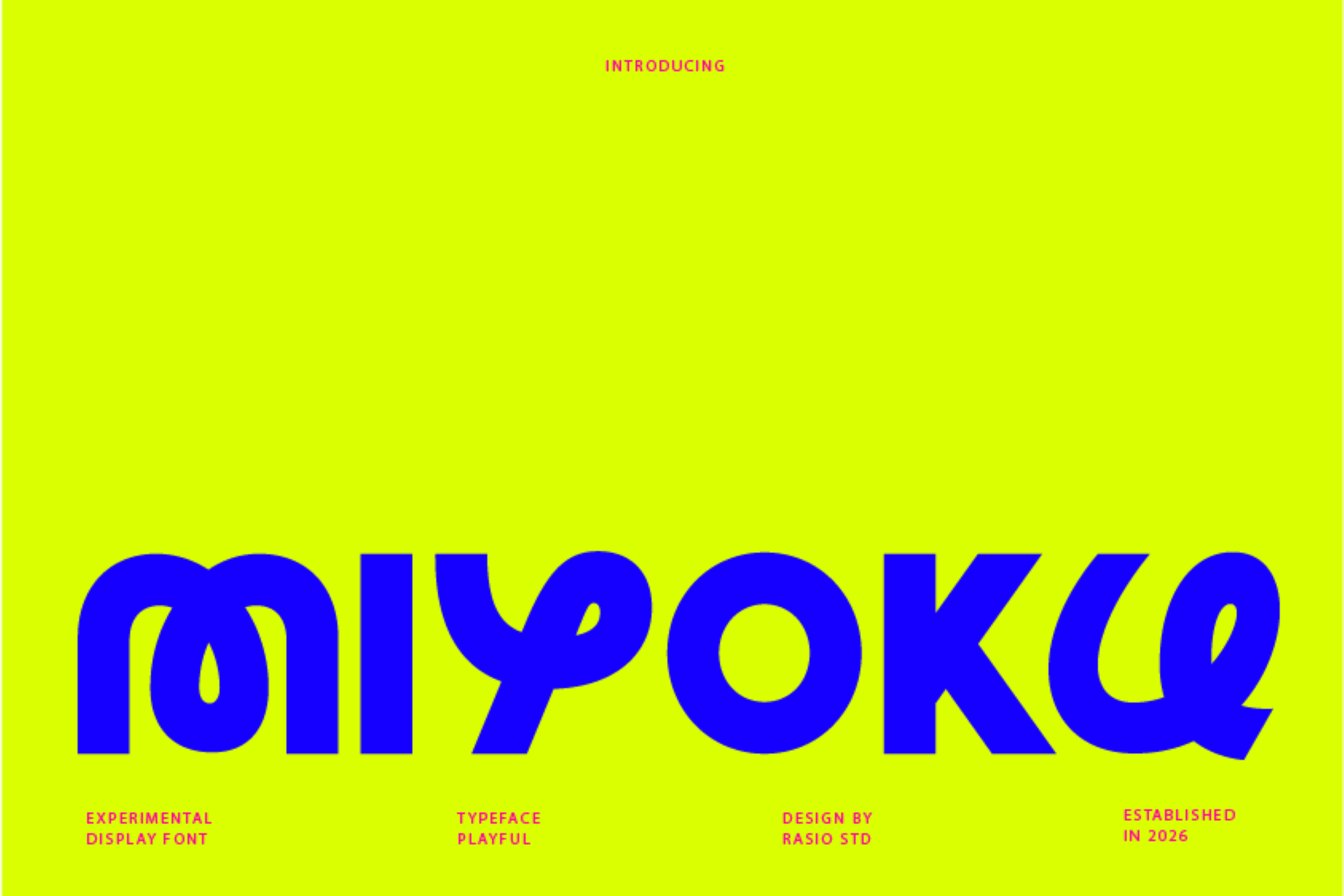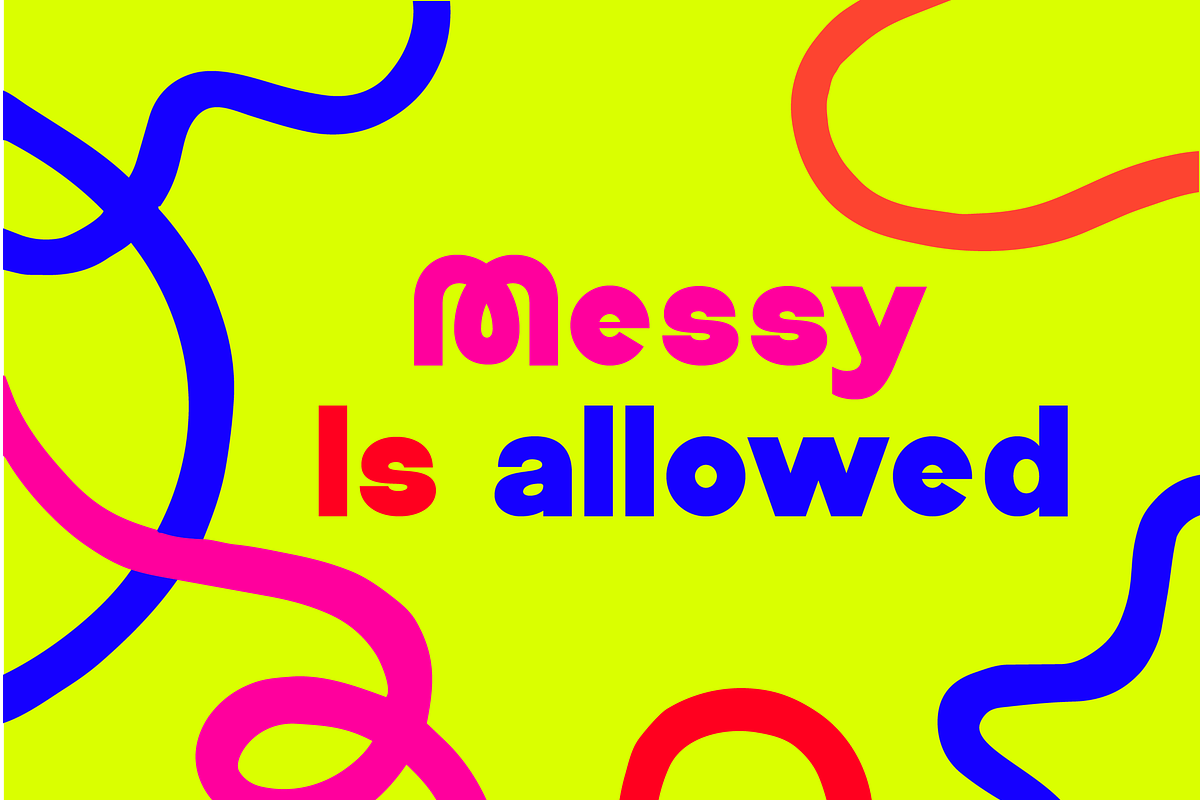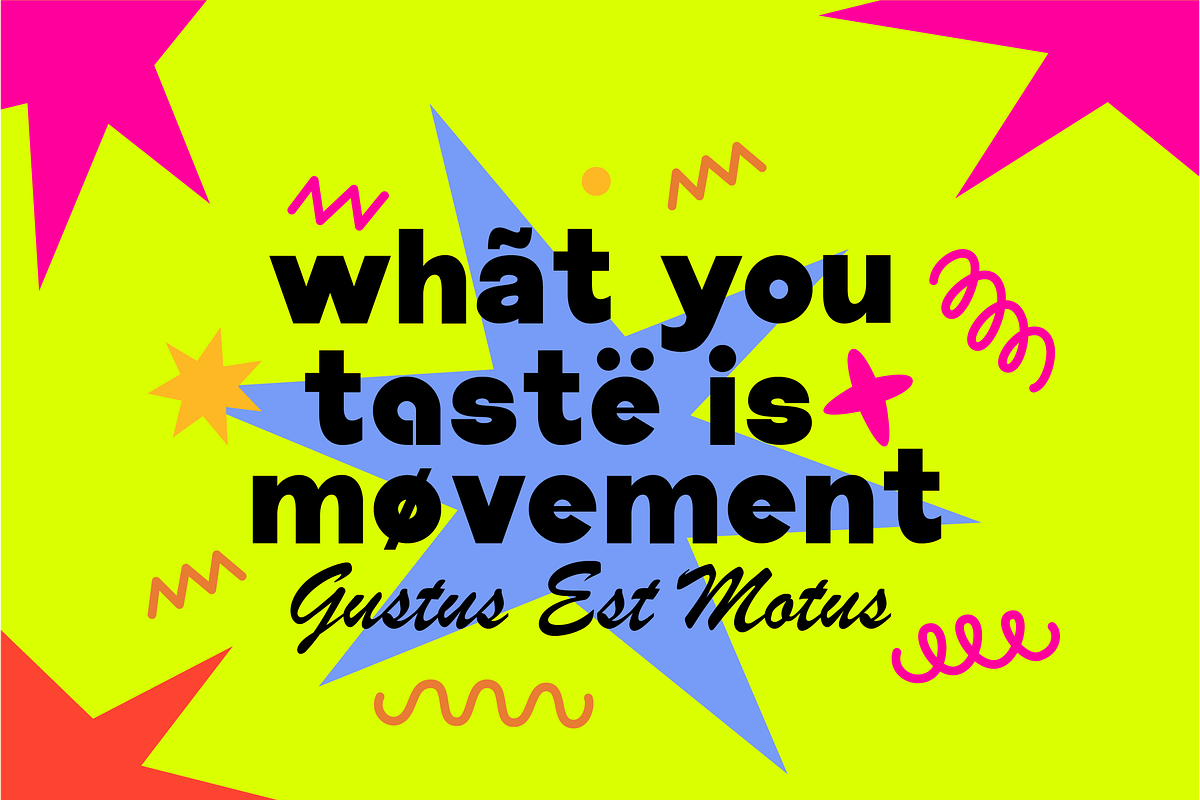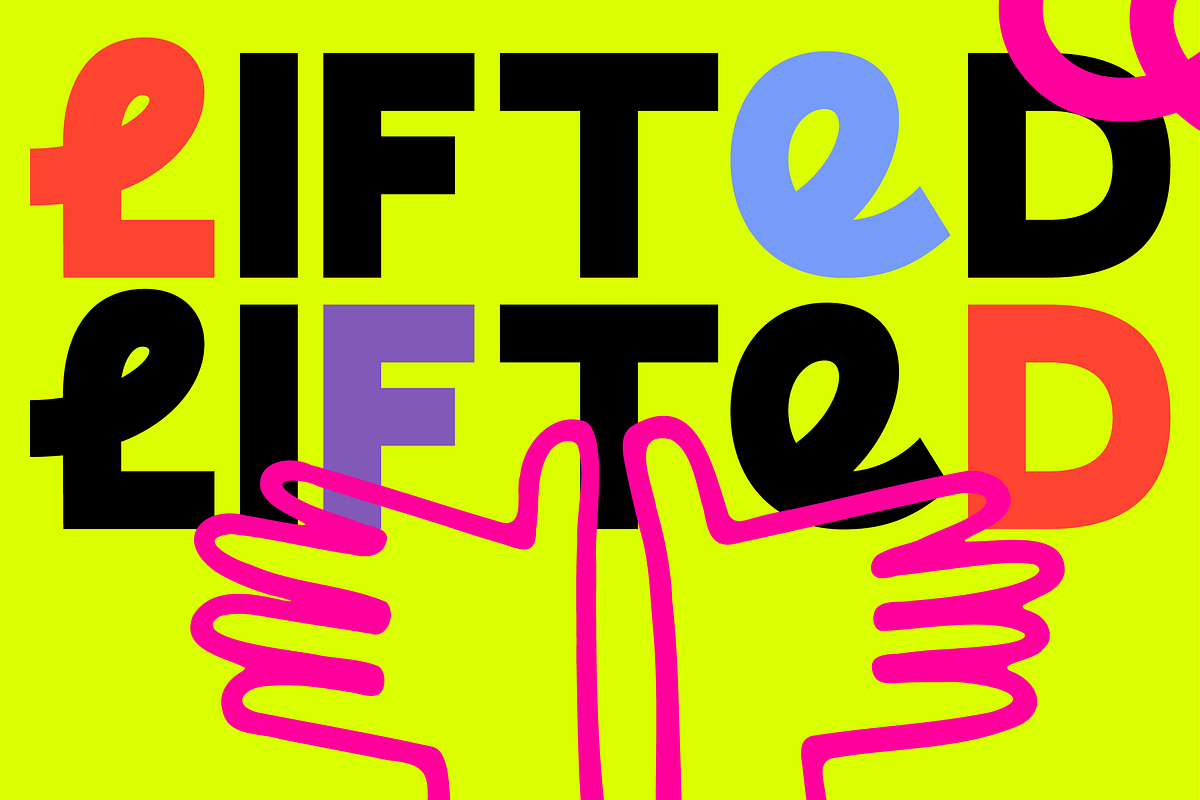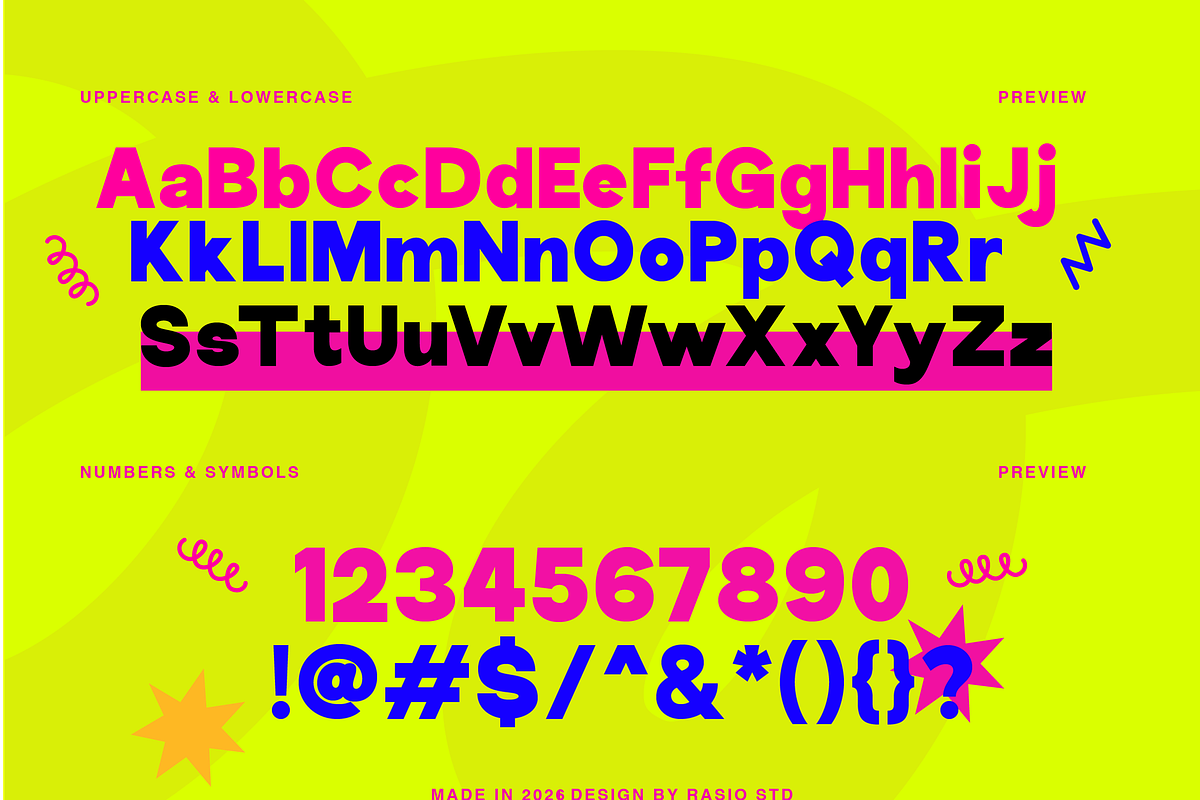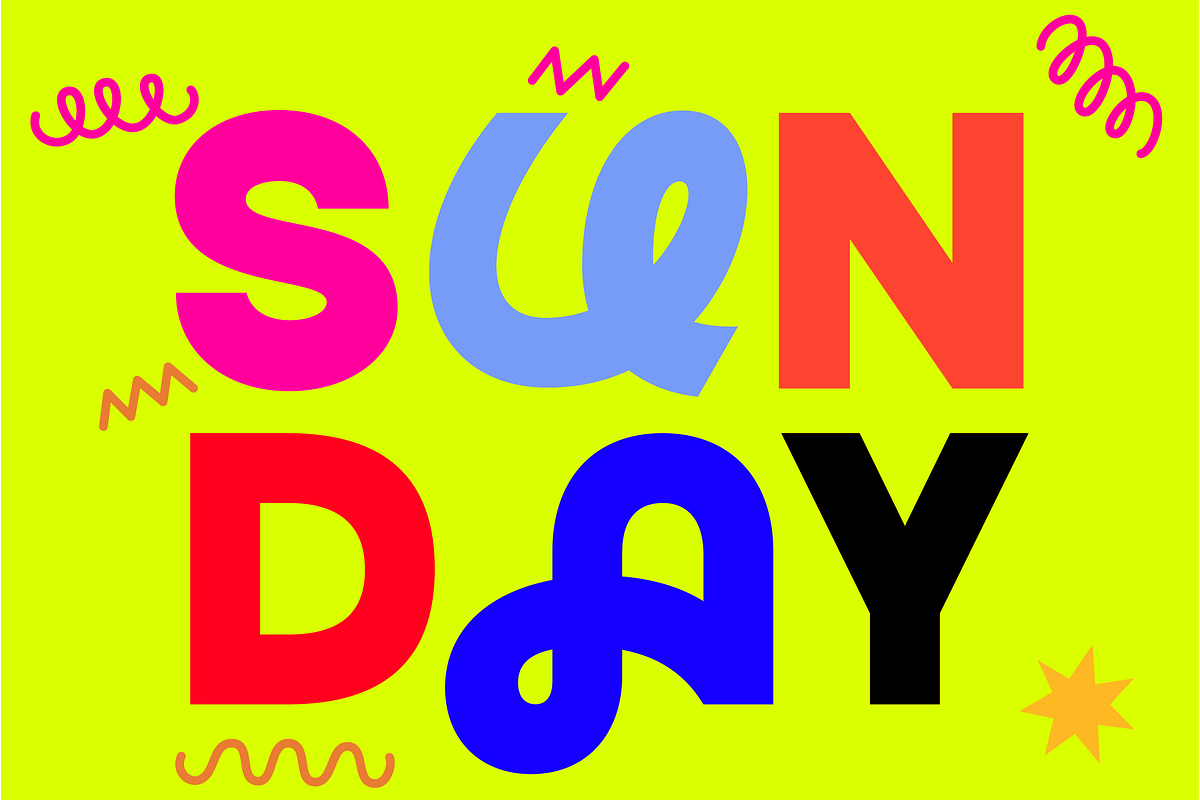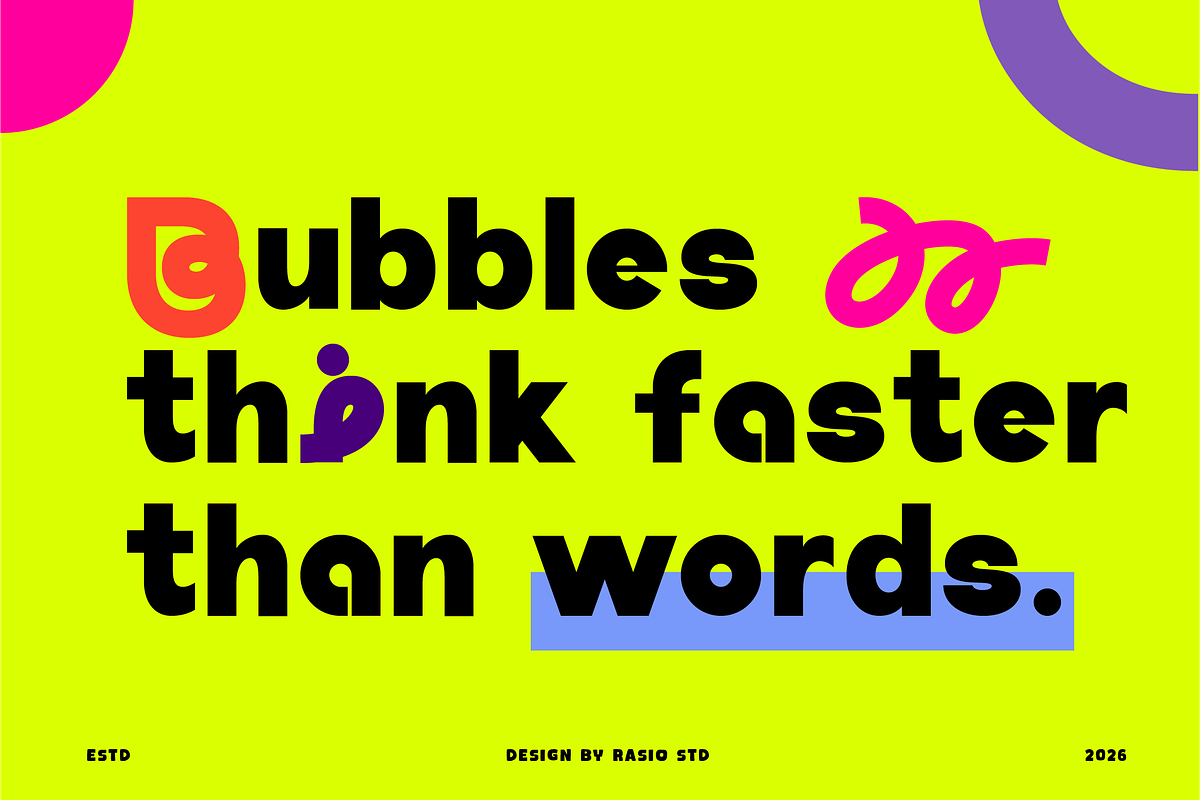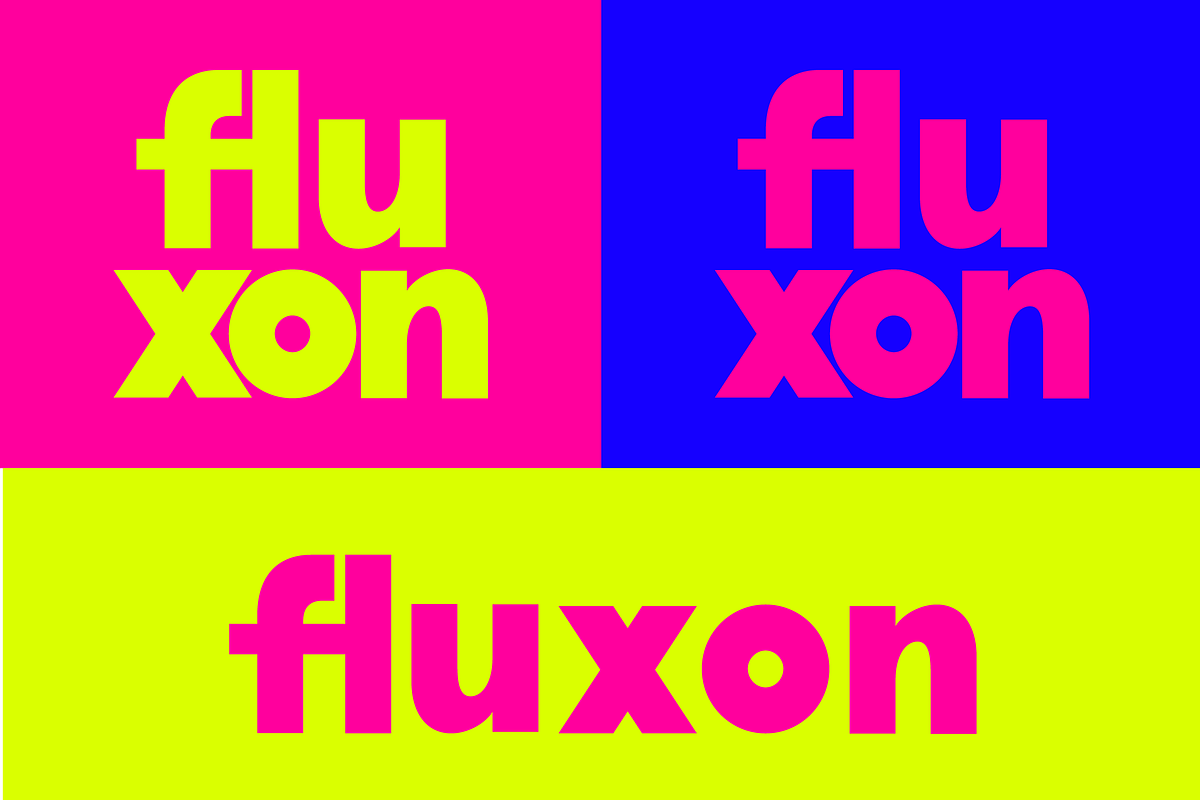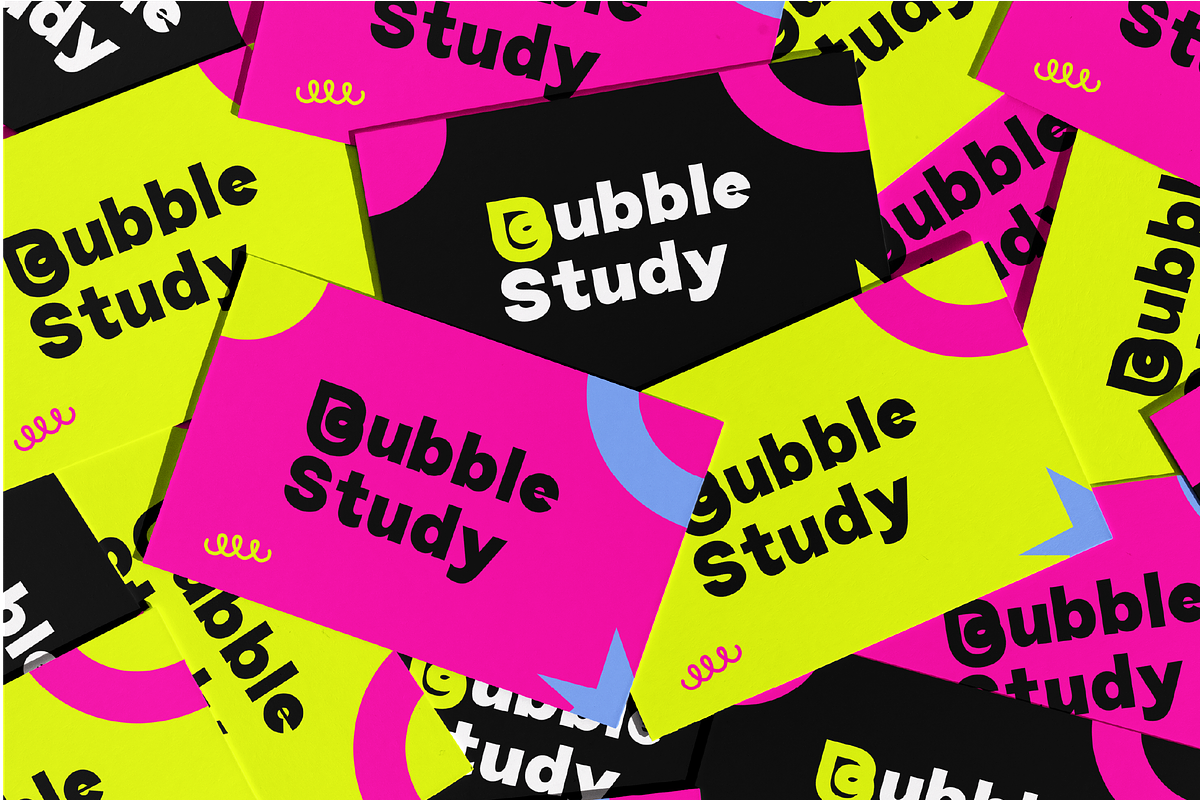
Miyoku Experimental Display Font
Miyoku is a playful experimental display font with bold shapes, quirky proportions, and expressive character forms. The letter design explores unconventional curves, unexpected details, and lively geometry, creating a strong visual personality that feels fun and energetic. It includes uppercase, lowercase, numbers, and symbols with consistent weight and playful rhythm.
Relevance and Use Cases is perfect for creative branding, posters, event promotions, and visual campaigns that aim to stand out with bold personality and playful expression. It works especially well for children and youth-focused designs, fun packaging concepts, social media graphics, headlines, and experimental layouts where energy and visual impact are key.
- Playful experimental letterforms with bold and expressive shapes
- Unconventional curves and quirky proportions for strong visual character
- Rounded edges and smooth forms to keep a friendly appearance
- Consistent stroke weight that maintains balance across characters
- Designed spacing optimized for headlines, posters, and expressive display use
- Creative brand identities that aim for playful, bold, and expressive visuals
- Event promotions, posters, and campaign graphics with strong personality
- Youth-oriented, kids, and fun lifestyle design projects
- Packaging and product visuals that need a colorful and energetic tone
- Social media templates, digital content, and headlines that demand attention
Bold, playful, and expressive, Miyoku makes your design stand out